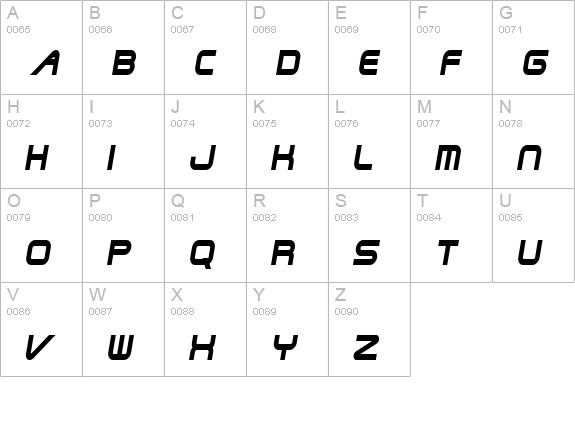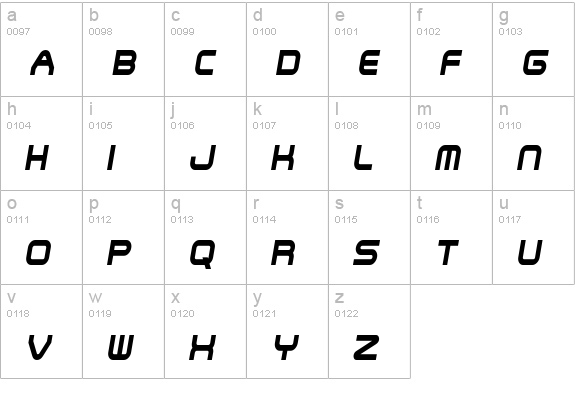
ShuttleCondensed Italic Font Details
ShuttleCondensed Italic is a distinctive, italic variant in the ShuttleCondensed typeface family \xE2\x80\x94 well suited to design and typography projects.
ShuttleCondensed Italic font is a captivating and stylish typeface that exudes a sense of elegance and sophistication. It effortlessly combines sleek lines with a touch of playfulness, making it the perfect choice for a variety of design projects. With its slanted and italicized form, ShuttleCondensed Italic adds a sense of movement and dynamism to any text. Its condensed proportions allow for the efficient use of space, making it ideal for headlines, posters, logos, and other display purposes. This font's unique and distinctive character is sure to grab attention and leave a lasting impression. Whether used in print or digital media, ShuttleCondensed Italic adds a touch of class and professionalism to any design. What sets ShuttleCondensed Italic apart is that it is available for free download at FontsMarket.com. This means that designers and creatives can access this exceptional font without any financial constraints. Its availability on FontsMarket.com ensures that it is easily accessible for all, making it a valuable addition to any font library. So, whether you are designing a website, creating branding materials, or working on a personal project, ShuttleCondensed Italic font is the perfect choice to elevate your design to new heights. With its unique blend of sophistication and playfulness, this font is sure to make a lasting impact on your audience. Download ShuttleCondensed Italic today and unleash your creativity with this freely available gem from FontsMarket.com.